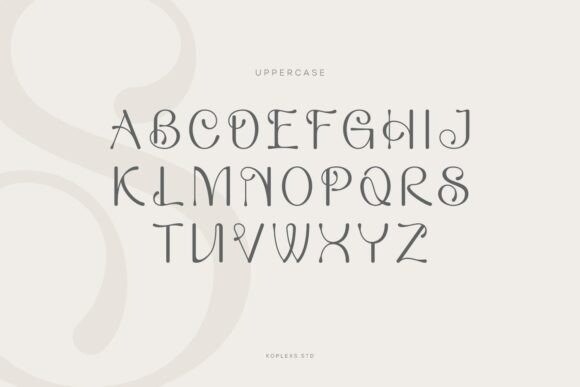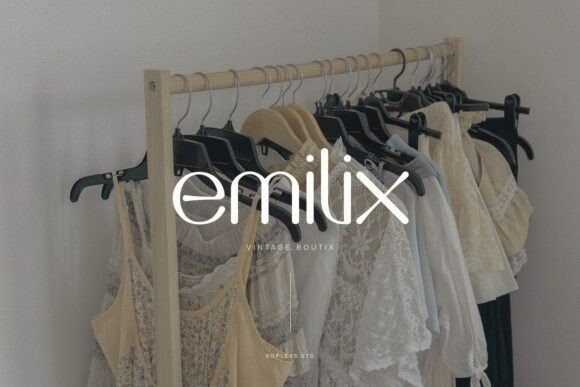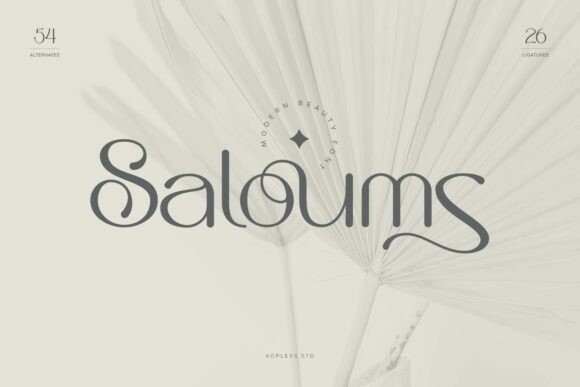
Saloums Font
Designer: Koplexs Studio
Saloums Font is a modern and classy serif font. This font is characterized by a blend of beauty and feminine feel, and it has a variety of uses but is primarily intended for logos, book covers, perfumes, fashion magazines, or invitations. Not only will you find lots of decorative characters, but also the number of unique alternative characters will make you fall in love with this font.